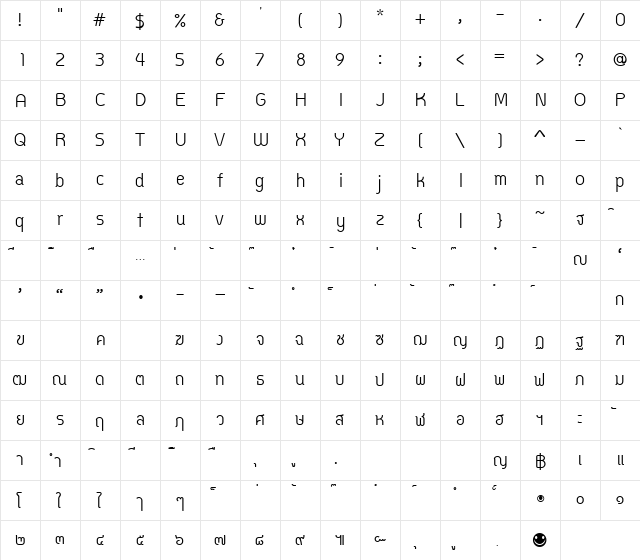
Circular Regular
| Foundry | Warit Chaiyakul |
| Designer | Warit Chaiyakul |
Design Context for Circular Typeface
Circular is a composed and adaptable typeface that performs quietly and consistently across a wide range of design contexts.